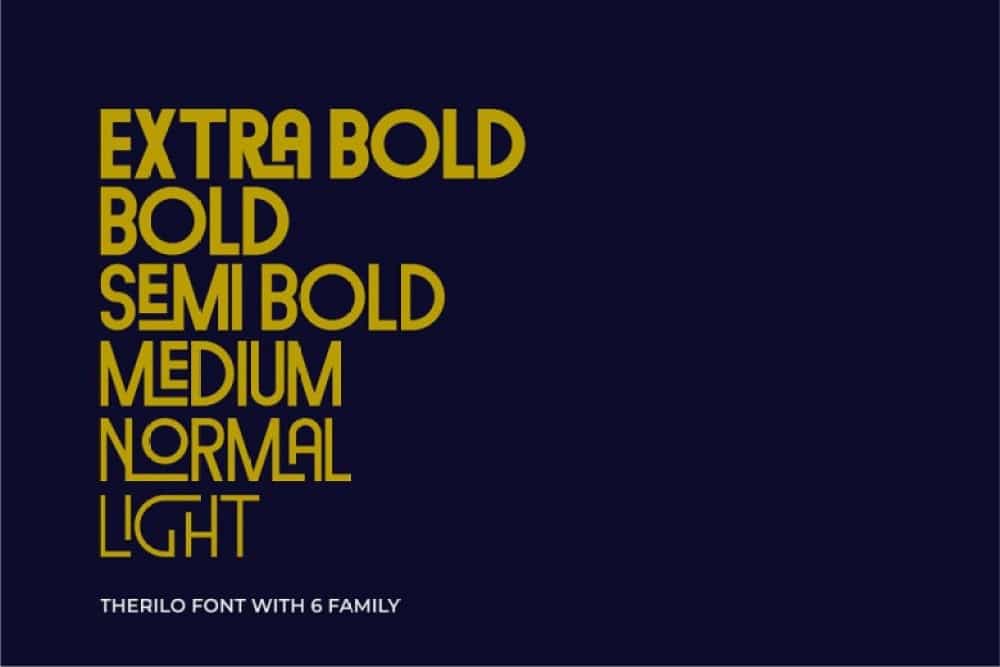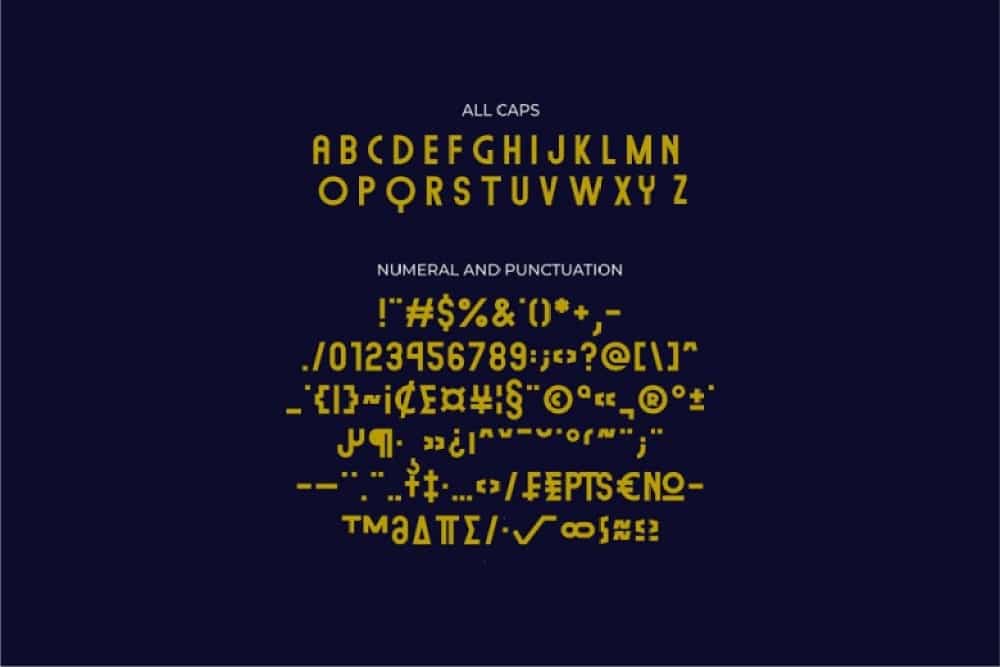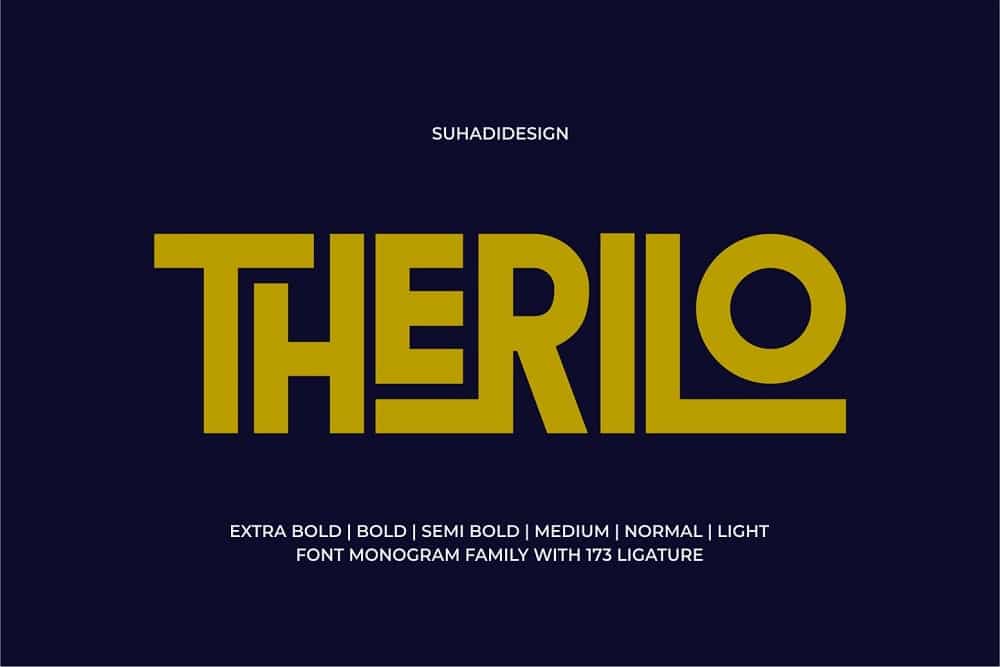
Therilo is a monogram sans serif font family that is modern, elegant, and cool so I decided to design this sans serif font. Therilo font is a modern sans serif font with 173 ligatures, designed in a modern style with the aim to become the customer’s choice. This font is maintained to look elegant, classy, modern, stylish, up to date and user friendly.